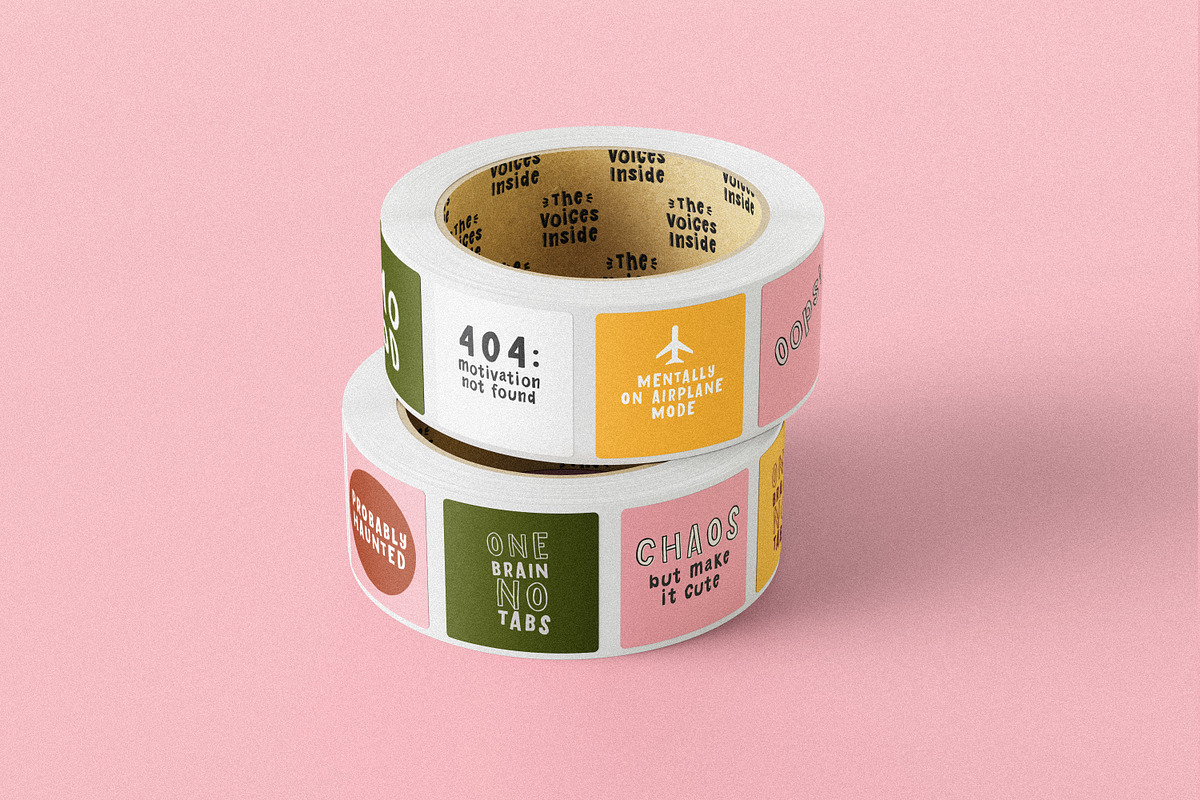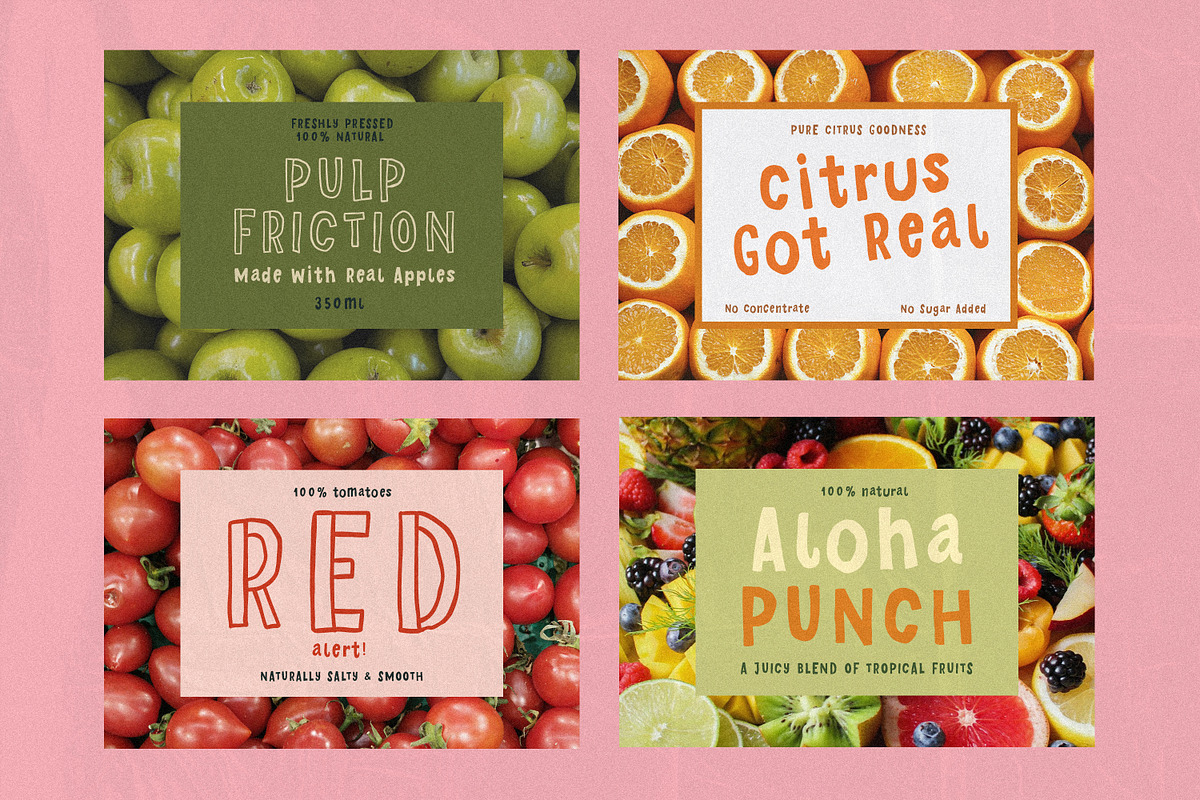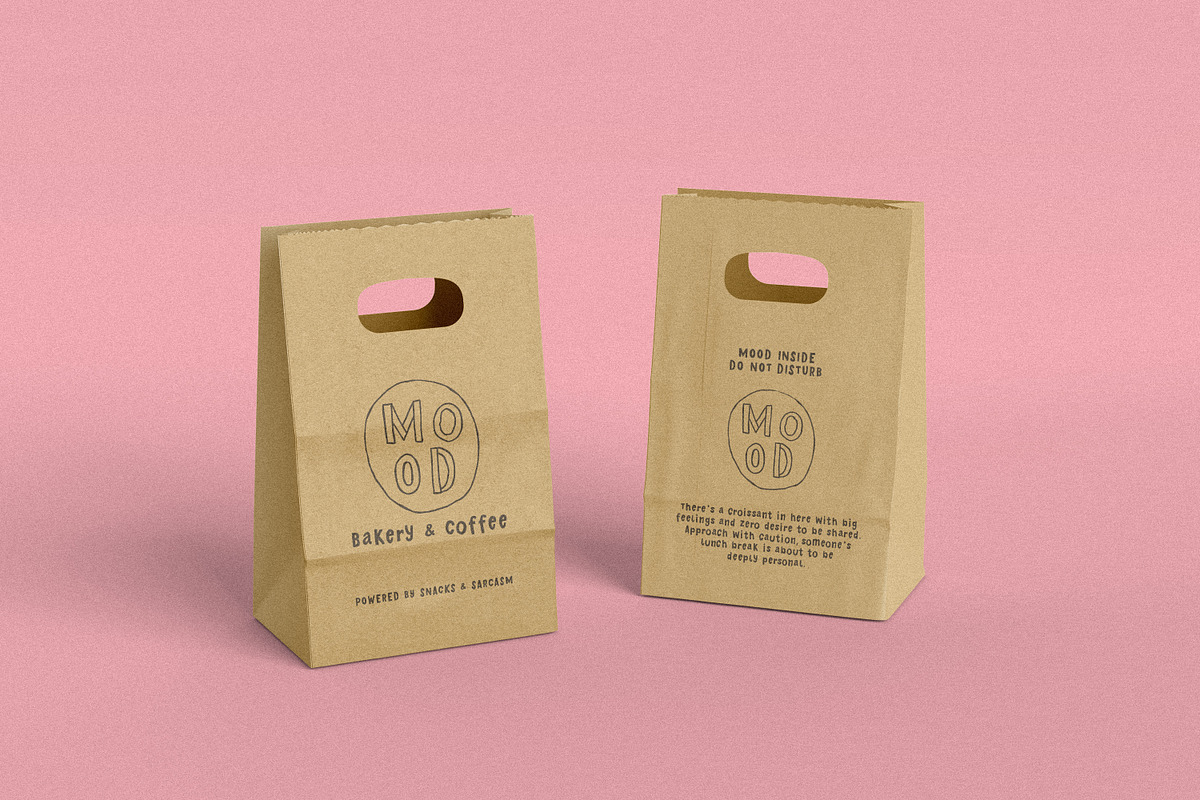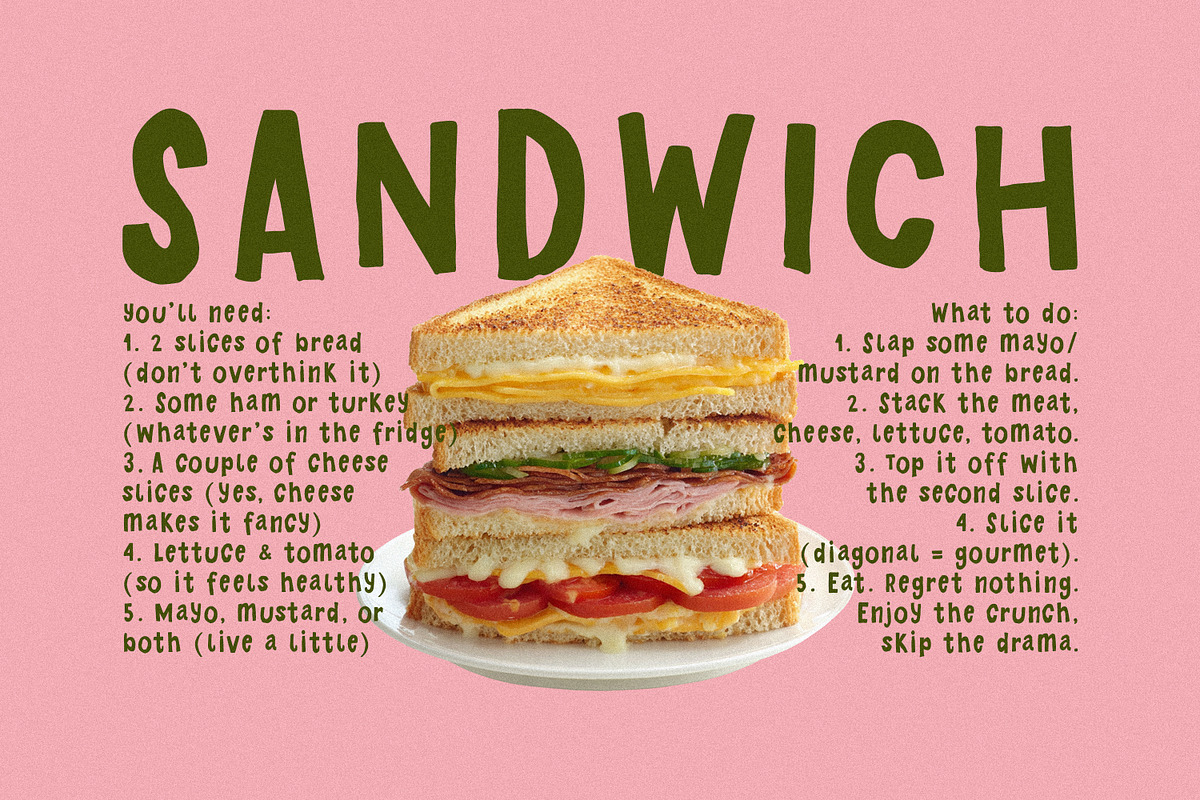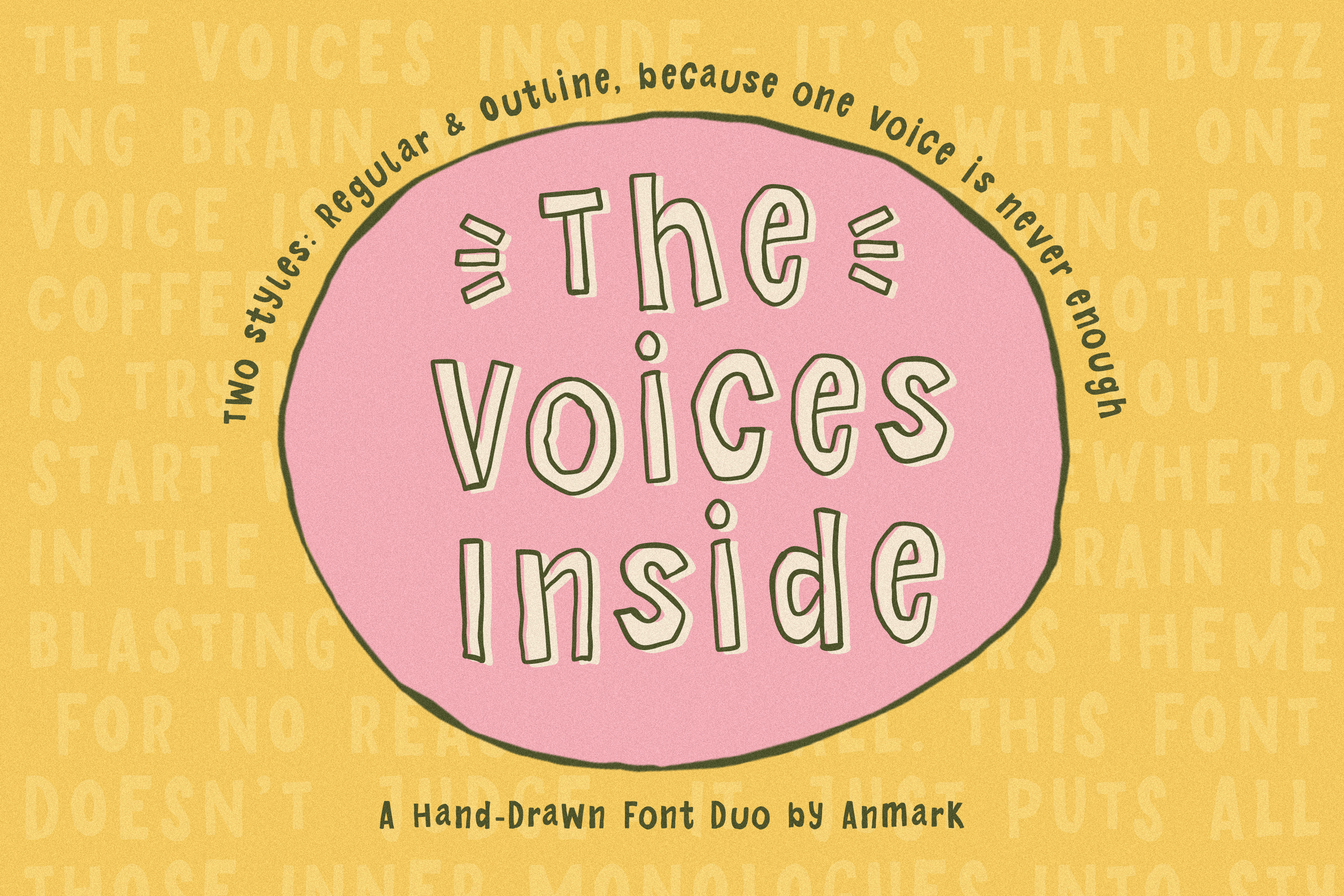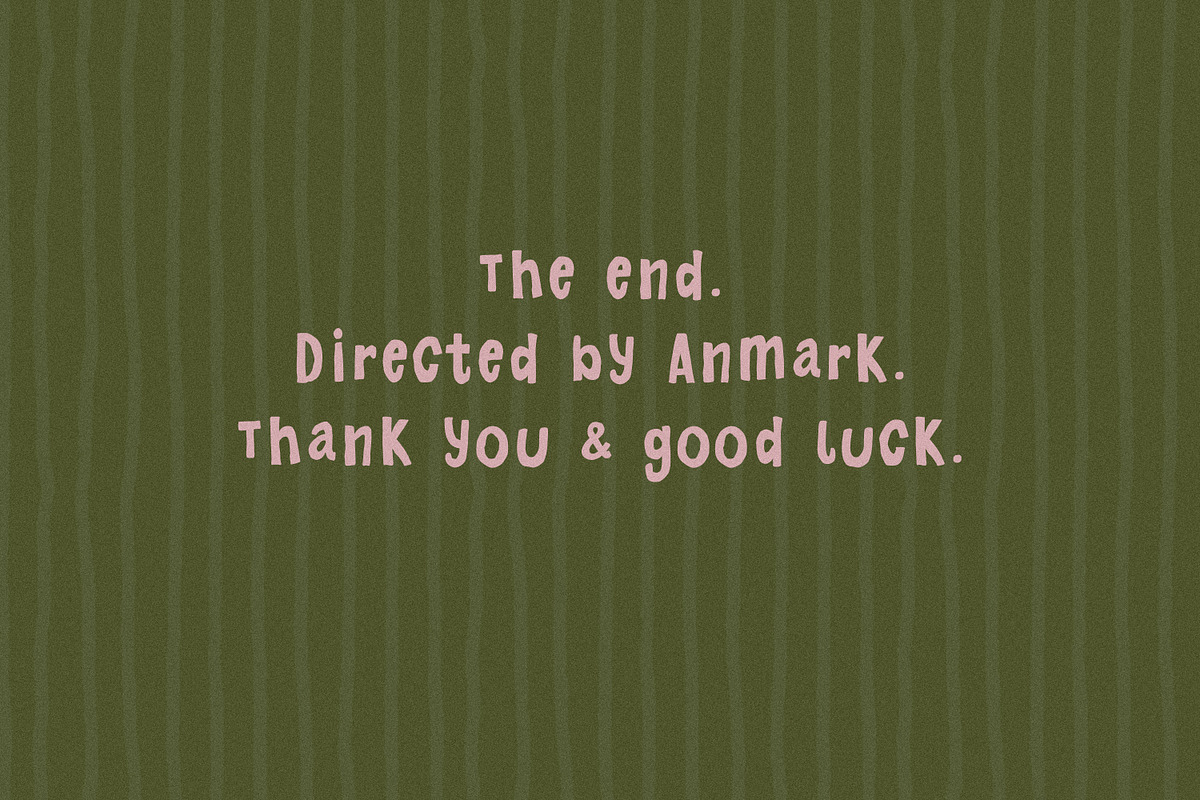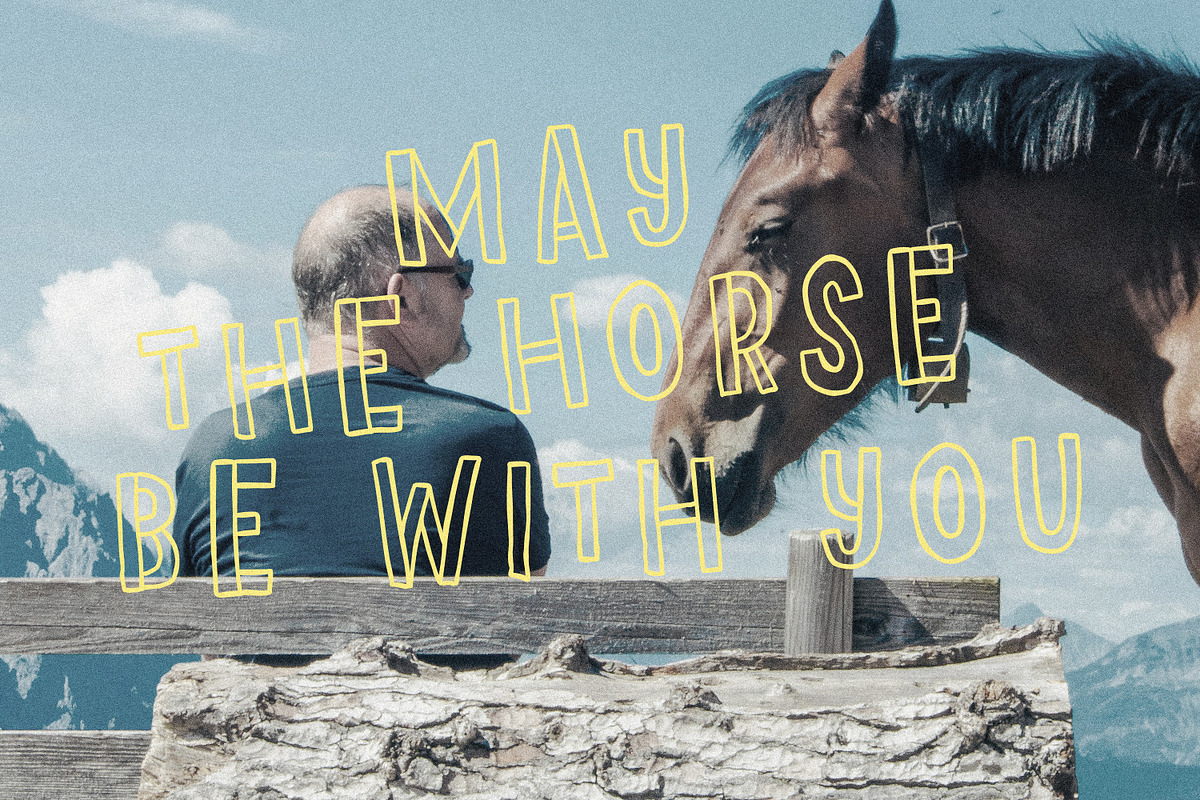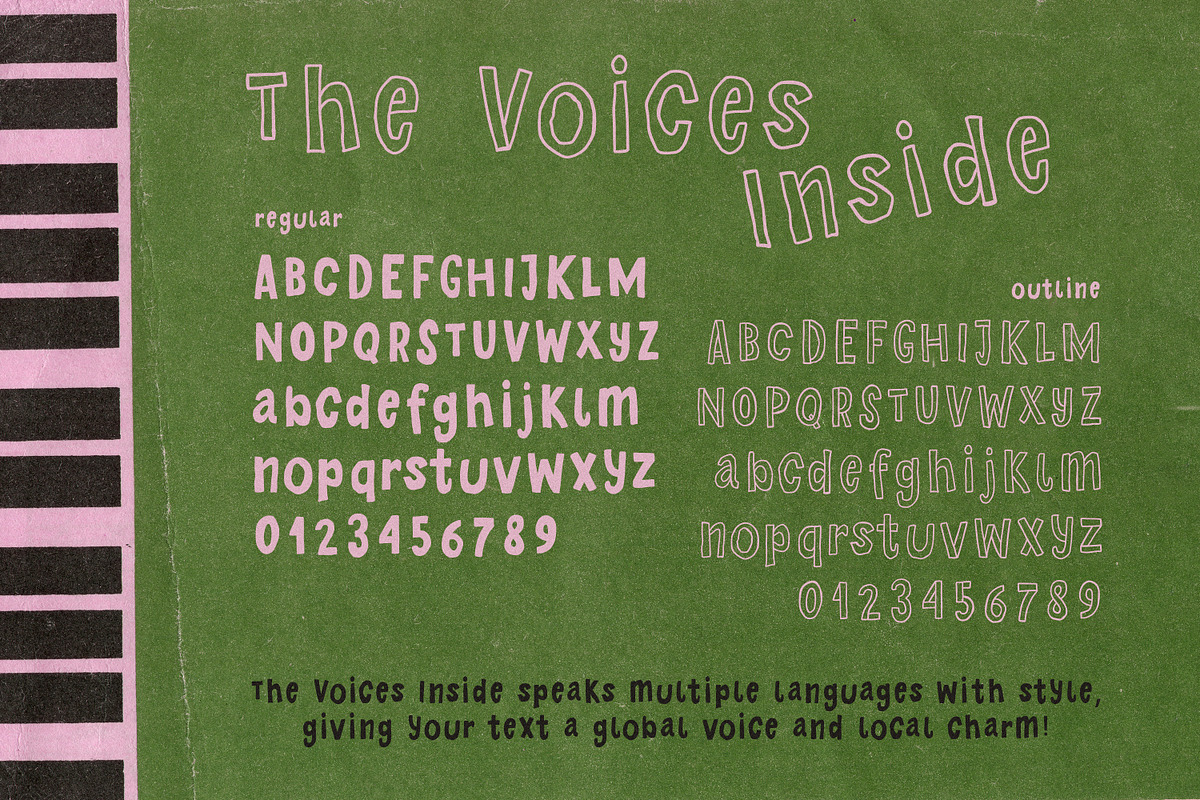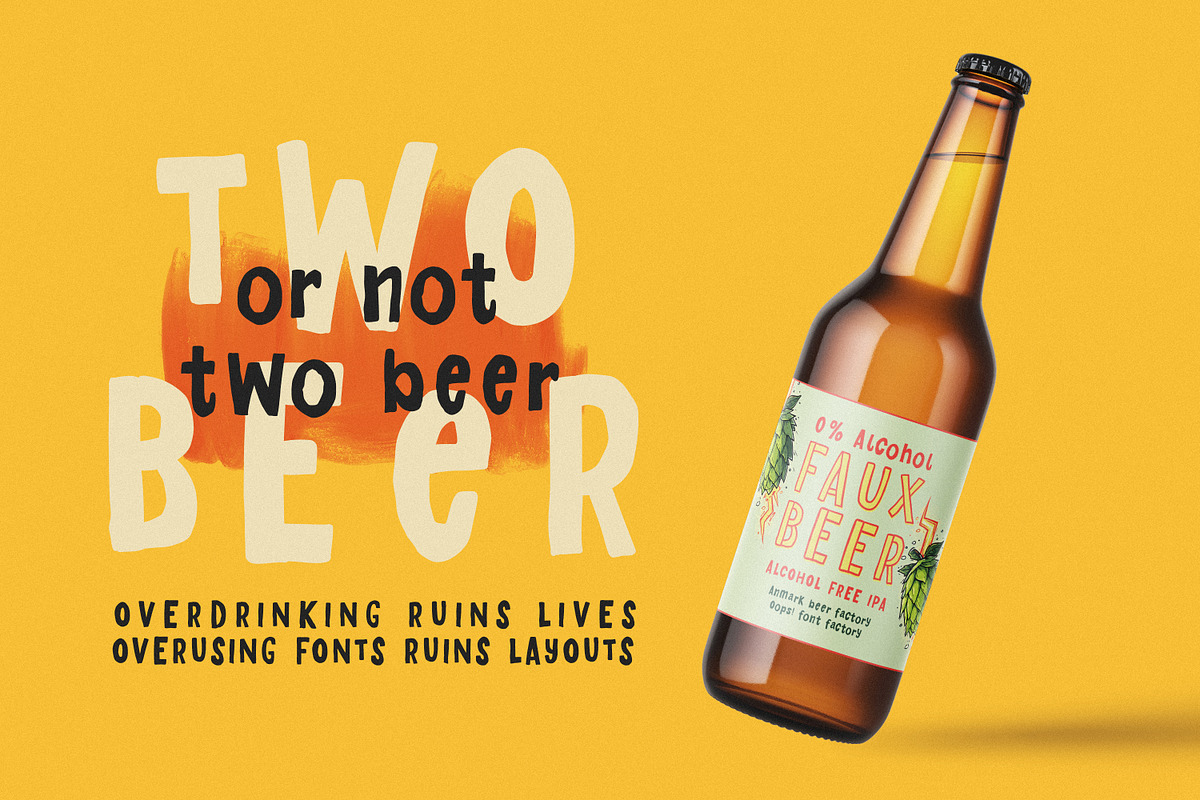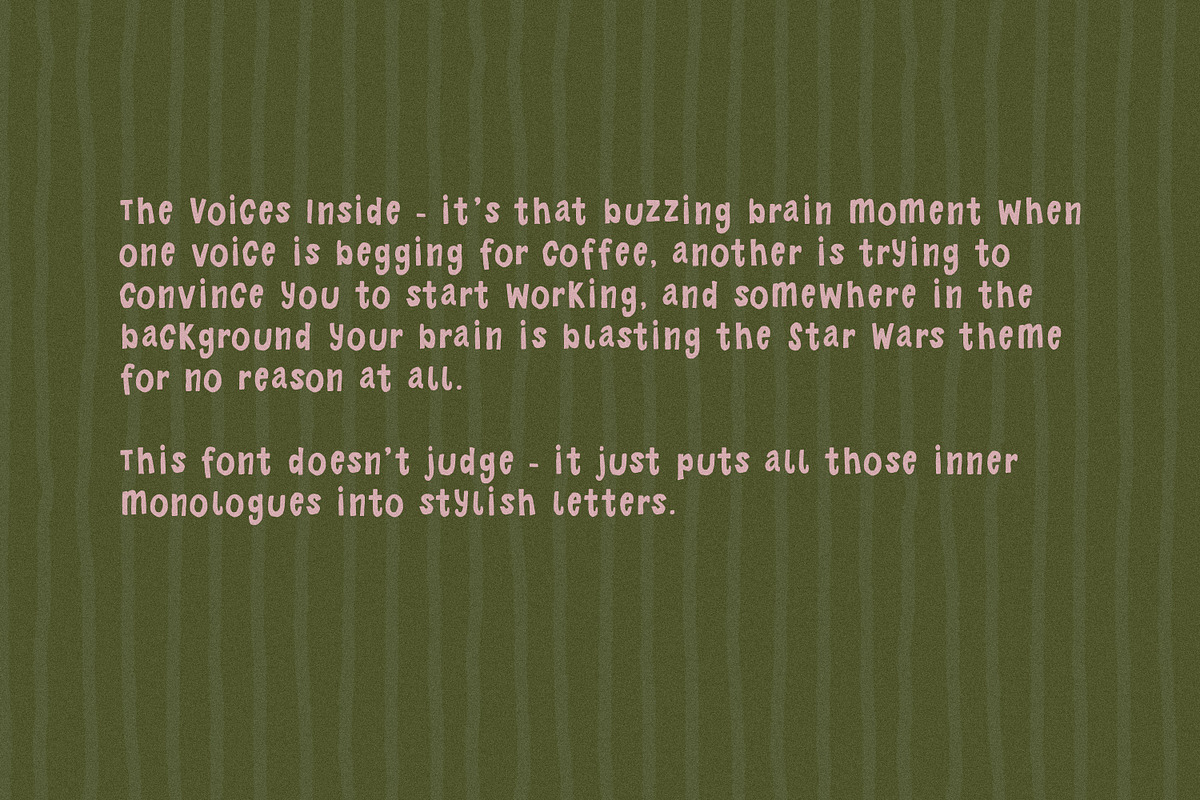
The Voices Inside Funny Font DUO
The Voices Inside is a quirky hand-drawn font duo that captures the beautiful chaos of your brain, from caffeine cravings to creative outbursts.
This font comes in two styles: Regular & Outline, so your inner voices can finally express themselves in layers. Perfect for quirky branding, loud thoughts, and design meltdowns that somehow turn out cute.
Oh, and yes, it comes with multilingual support, because your thoughts aren’t limited to one language, and neither is this font.
Let the chatter begin.